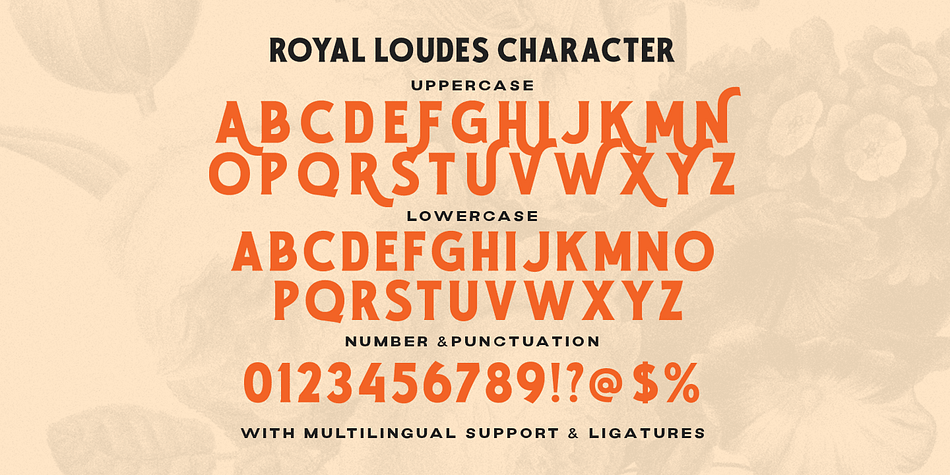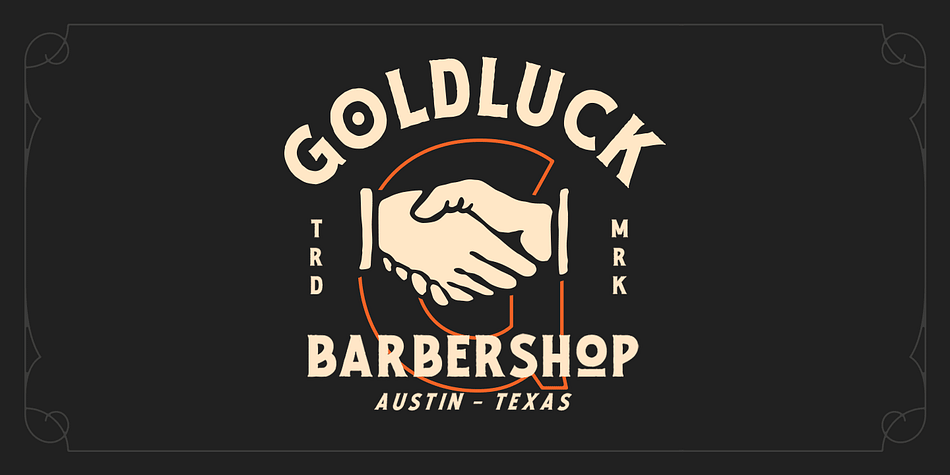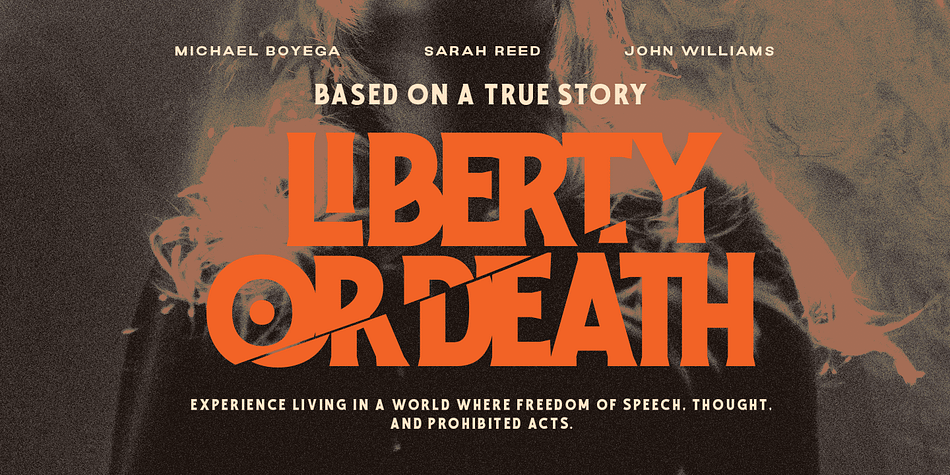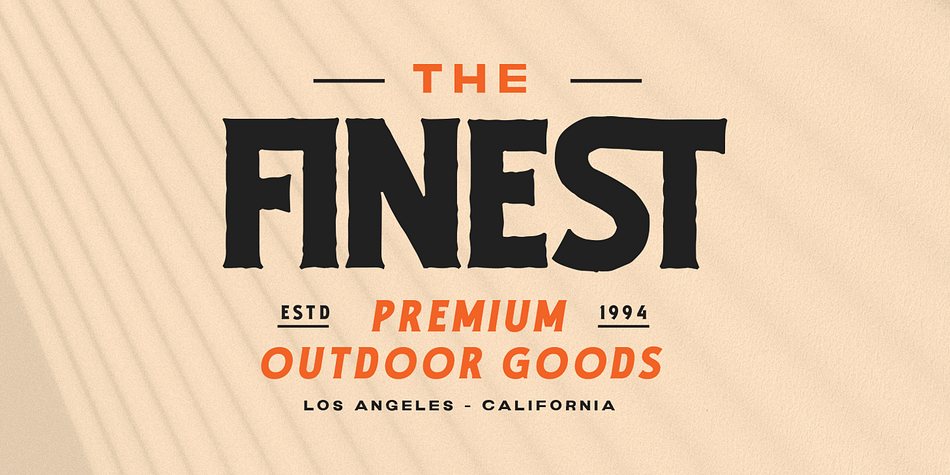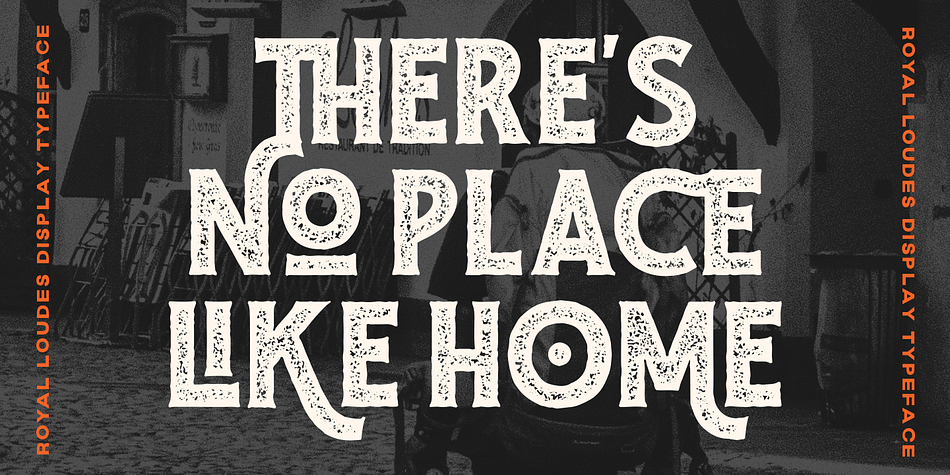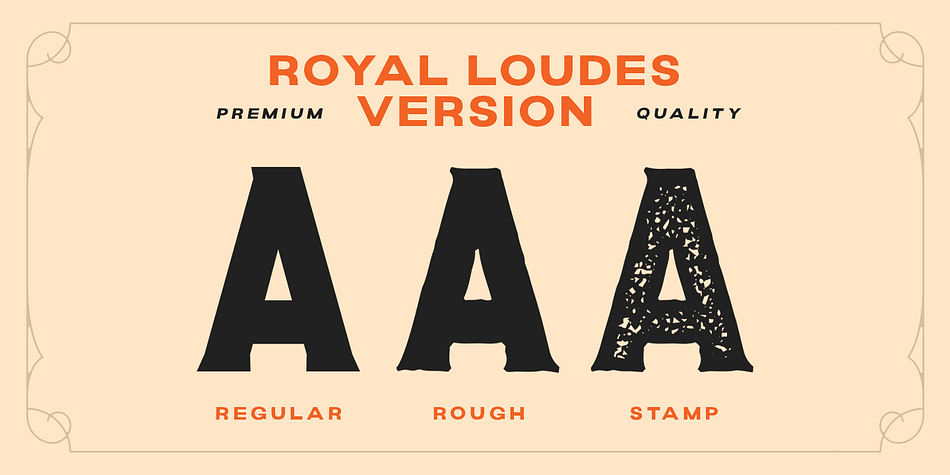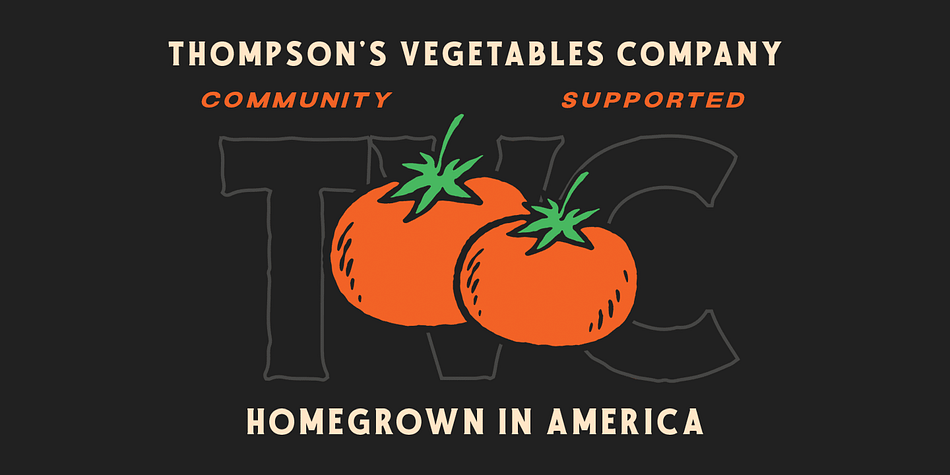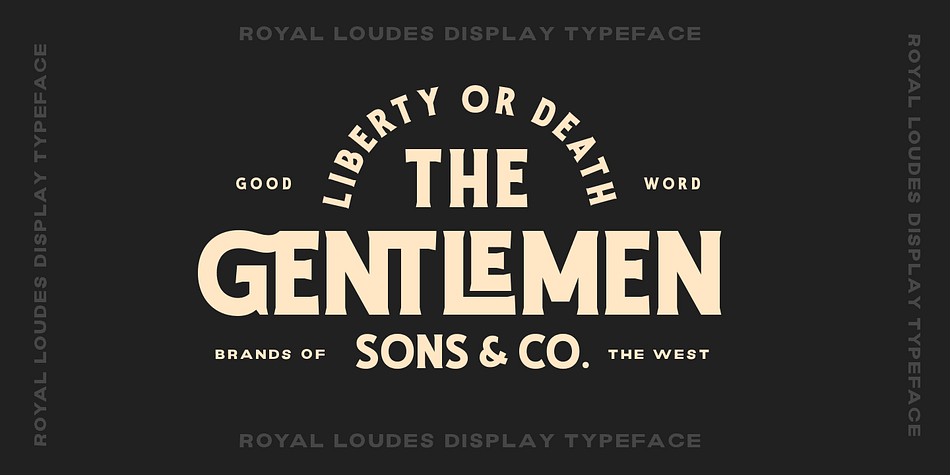
Royal Loudes
Designed by Hendry Juanda, Royal Loudes is a display serif font family. This typeface has three styles and was published by Letterhend Studio.
Bold and powerful, Royal Loudes is a top-of-the-line display font that commands attention. Its impeccable quality is evident in its flawless execution, with each letter carefully crafted to perfection. Available in three unique styles - regular, rough, and stamp - this font offers a dynamic range of options to suit any design need.
- Alternates & Ligatures